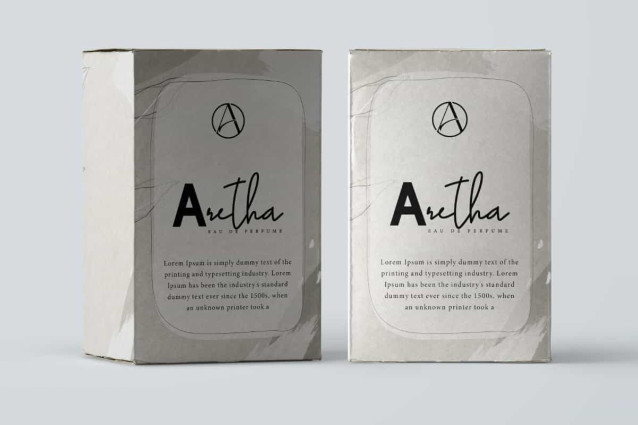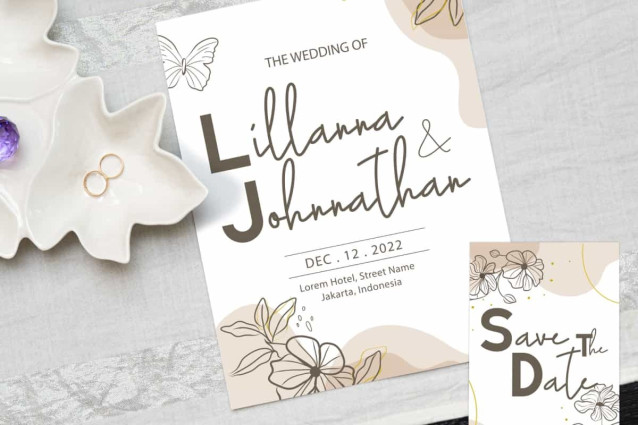
Wilson Karoline Font
Wilson Karoline Font is a unique unusual double styles, a font duo font combination of two different and aesthetic font because it has two different types. This font has a combination of bold sans serif and handwritten styles that make it look beautiful in every concept. It will be good for any designs, such as invitation, poster, signage, brand image, cover, custom design, greeting card, label, product packaging, quotes, web, and more!
Wilson Karoline Font includes a full set of Uppercase and Lowercase Letters with mostly ALL CAPS forms, Numerals, Punctuation, Symbol, and Alternate characters. This modern font will be suitable for various industries, such as event or wedding organizer, accessories, advertisement, event, fashion, florist, photography, printing, publishing, etc.